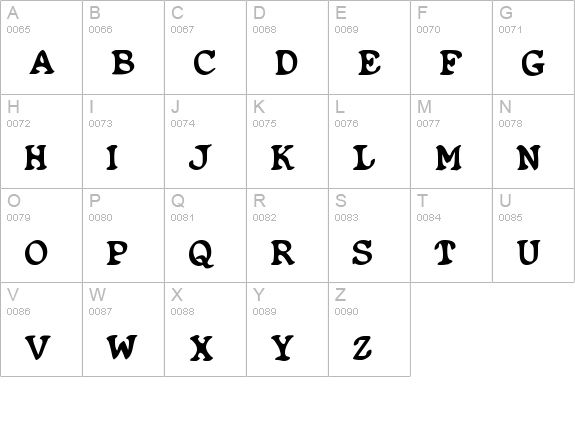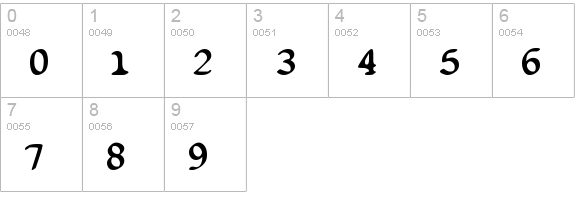
Blobfont G98 Font Details
Introducing Blobfont G98 - a whimsical and playful font that will add a touch of fun to your projects. This font features unique blob-like shapes and rounded edges, giving it a friendly and approachable appearance. Whether you're designing a poster, creating a logo, or crafting a greeting card, Blobfont G98 is sure to make a bold statement. The best part? Blobfont G98 is available for free download at FontsMarket.com! You can easily access this font and start using it in your designs right away. Embrace the creativity and versatility of Blobfont G98 to bring a fresh and engaging look to your projects. Let your imagination run wild with this charming and eye-catching font.